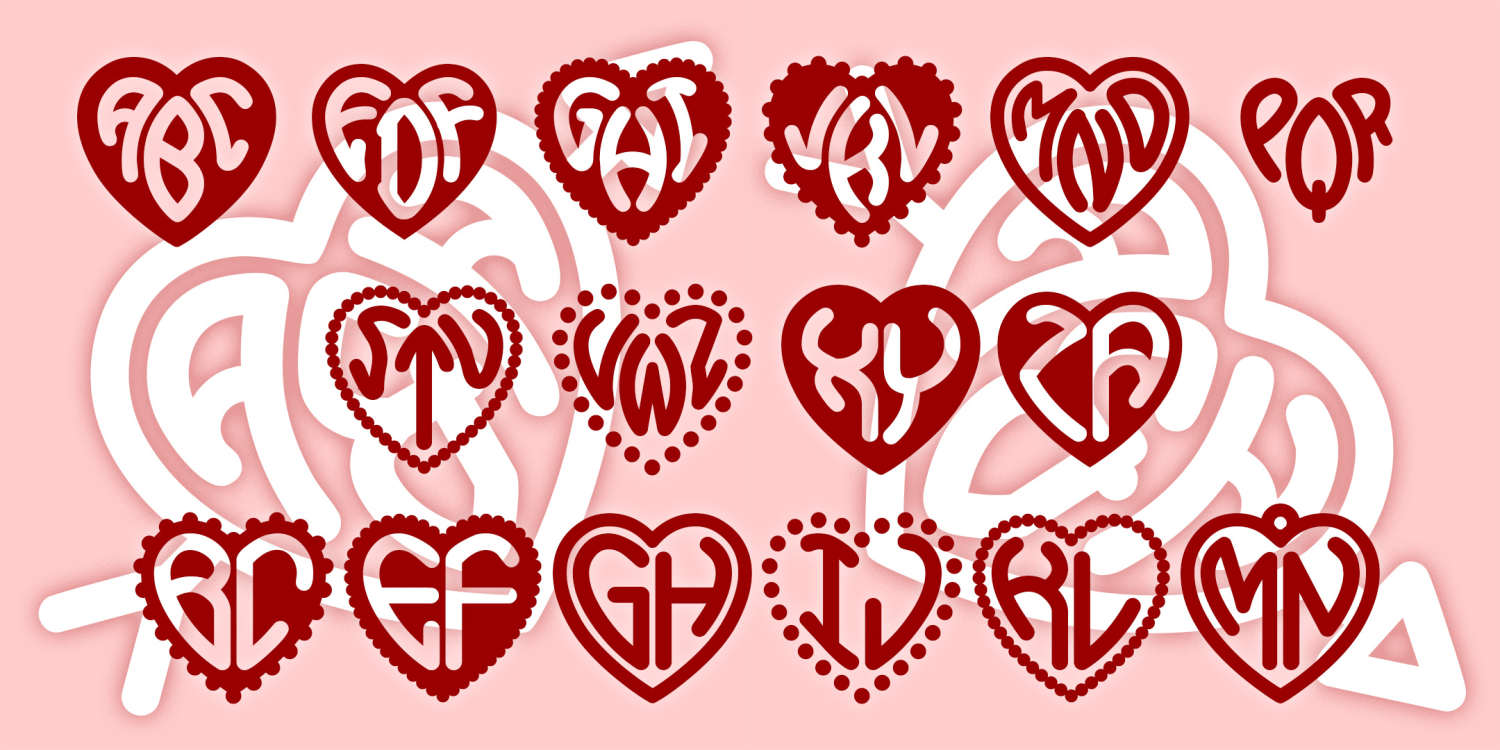
Font BrosDingbatMonograms Heart Monograms 0 79 FacebookTwitterPinterestWhatsApp 1 of 1 About Heart Monograms is a set of 4 fonts that let you create custom 2- and 3-letter monograms within a heart shape, with a black or white background and a choice of decorative frames.  DOWNLOAD NOW